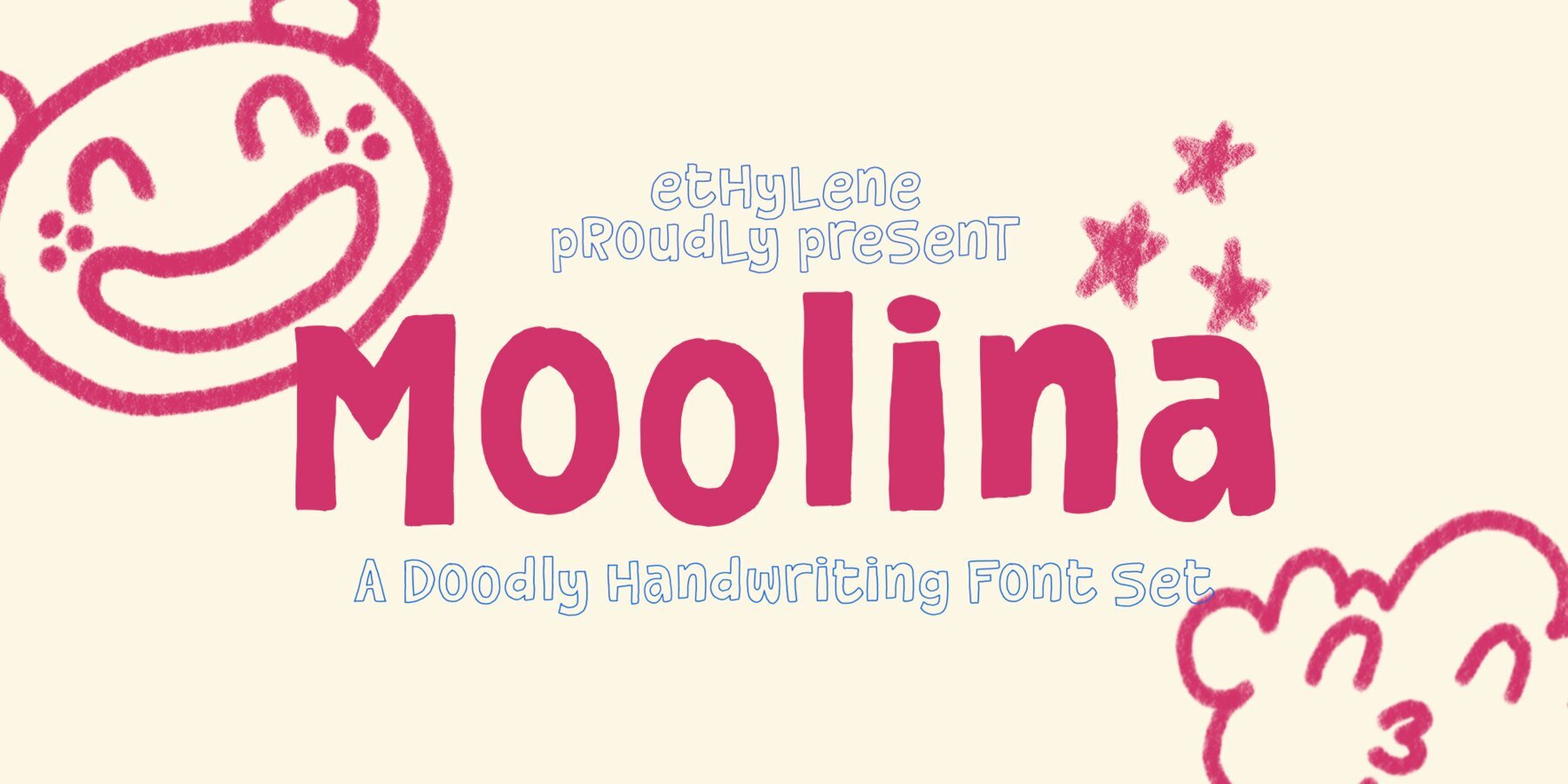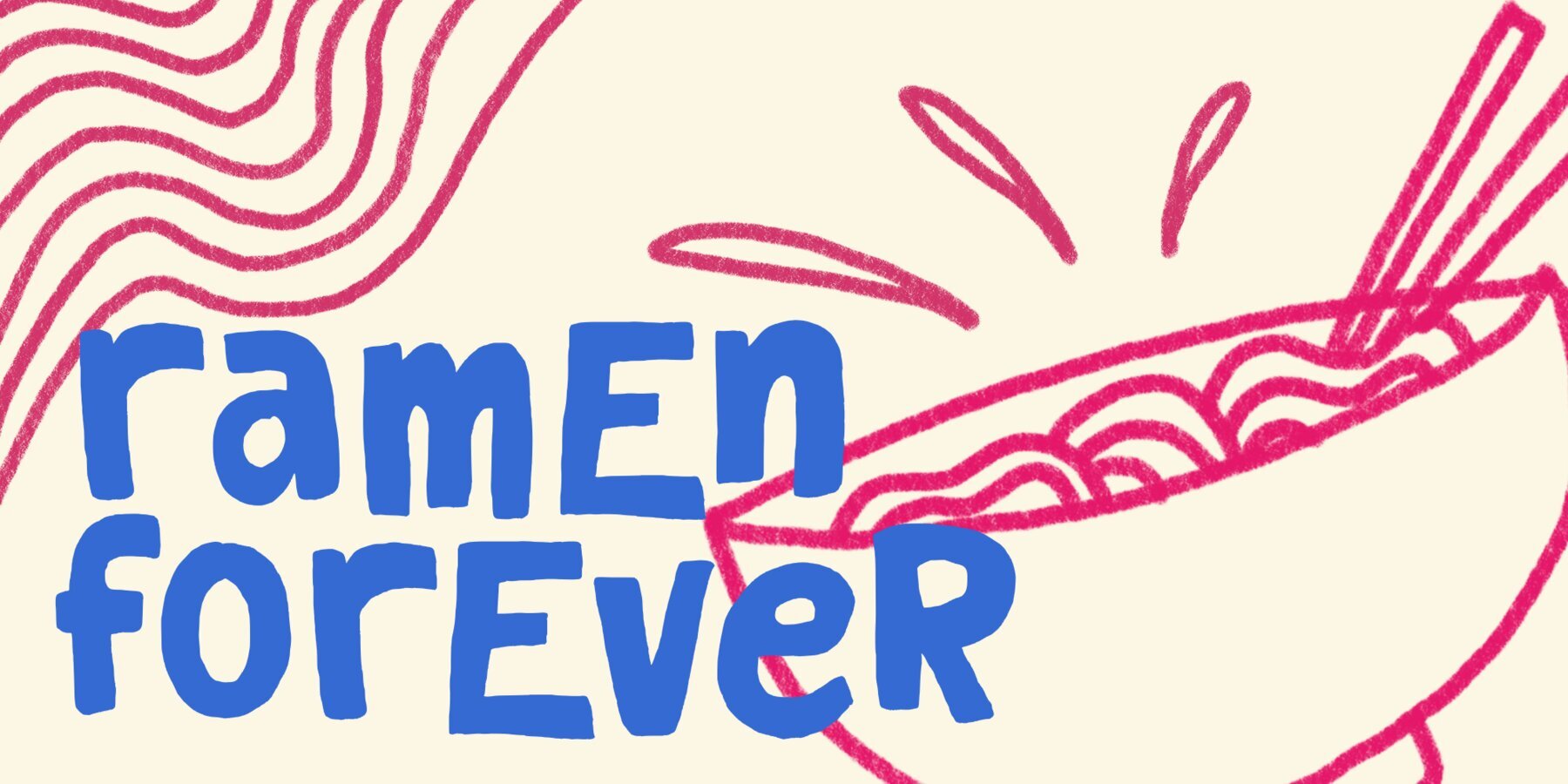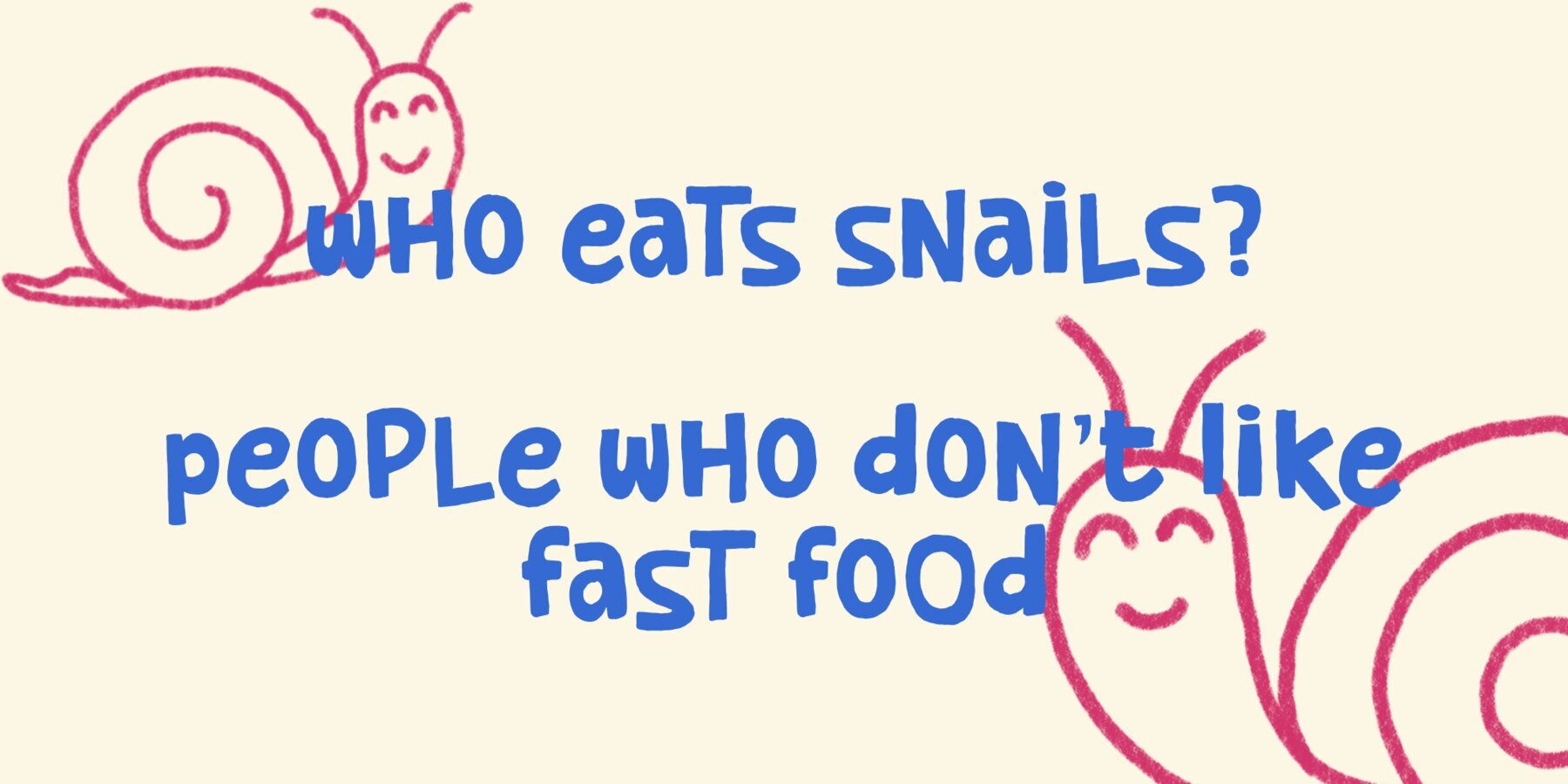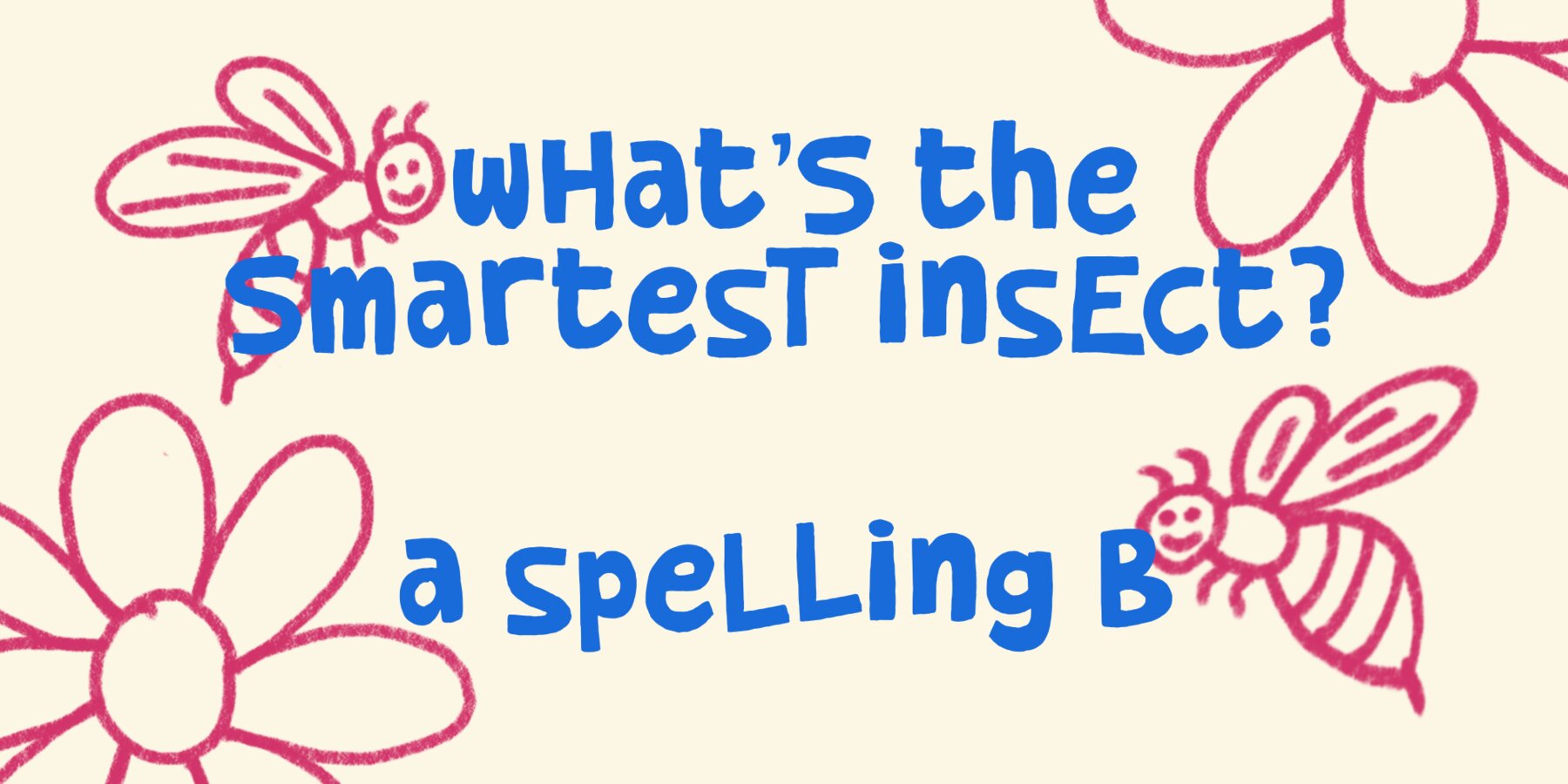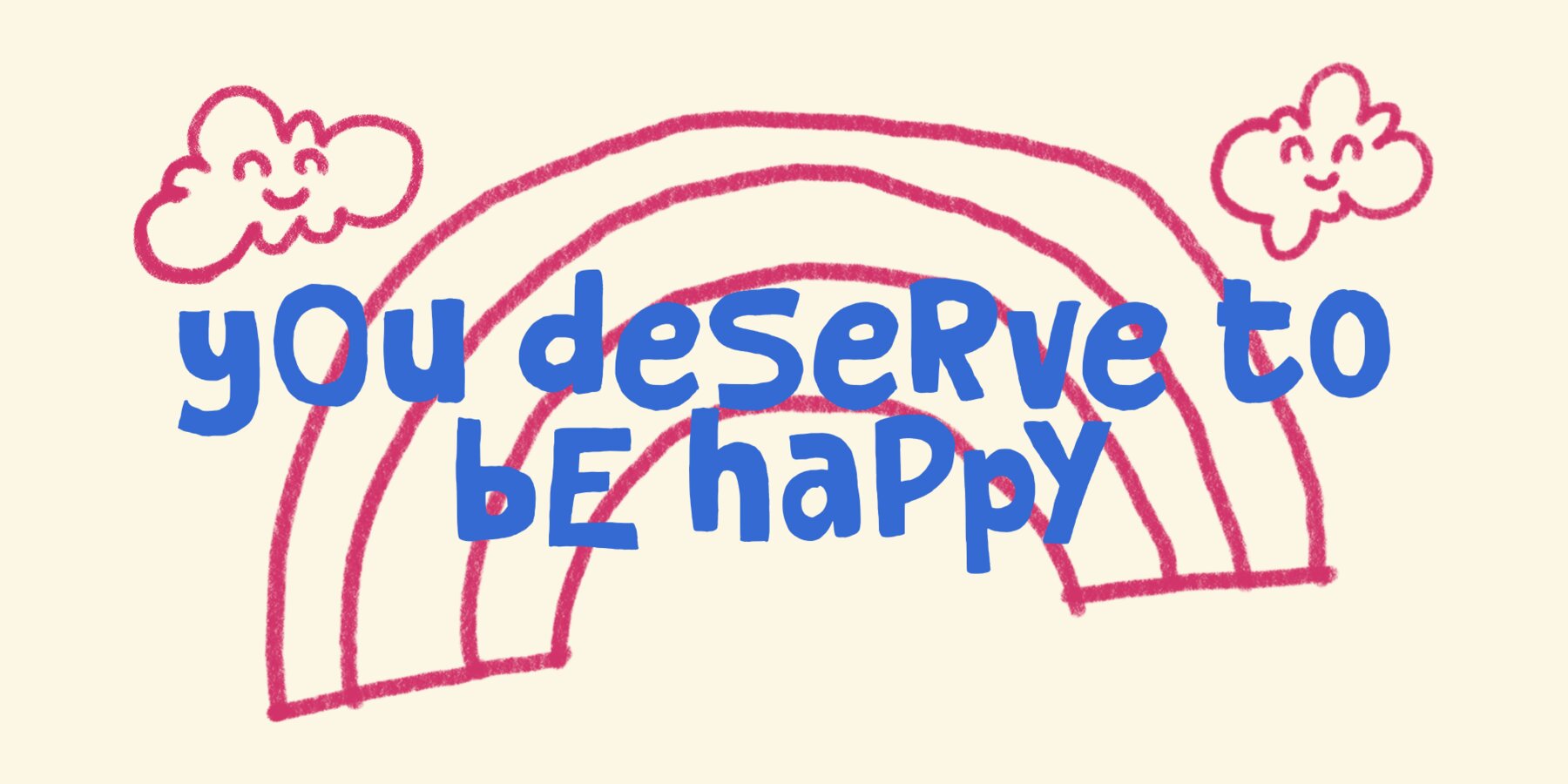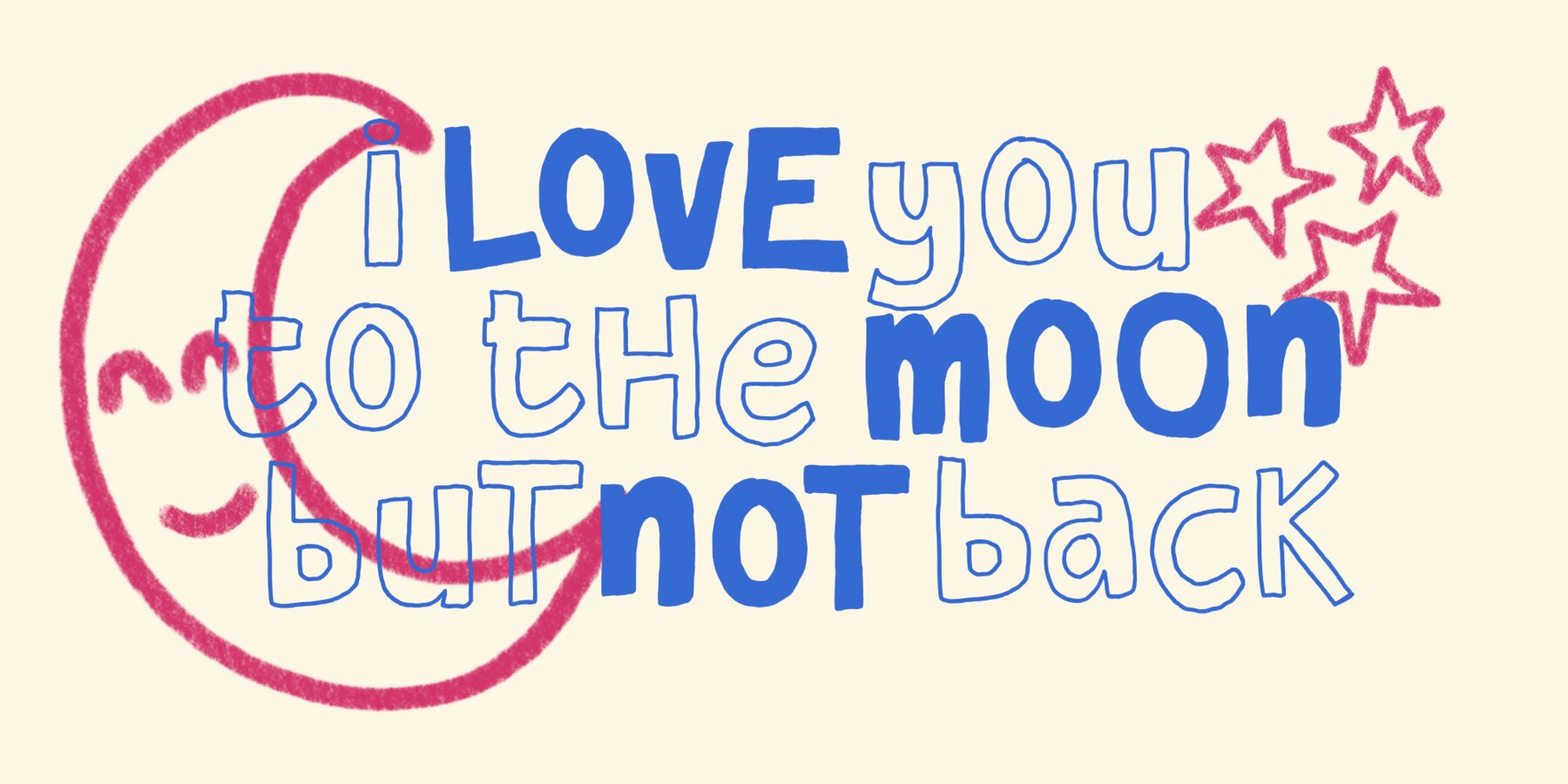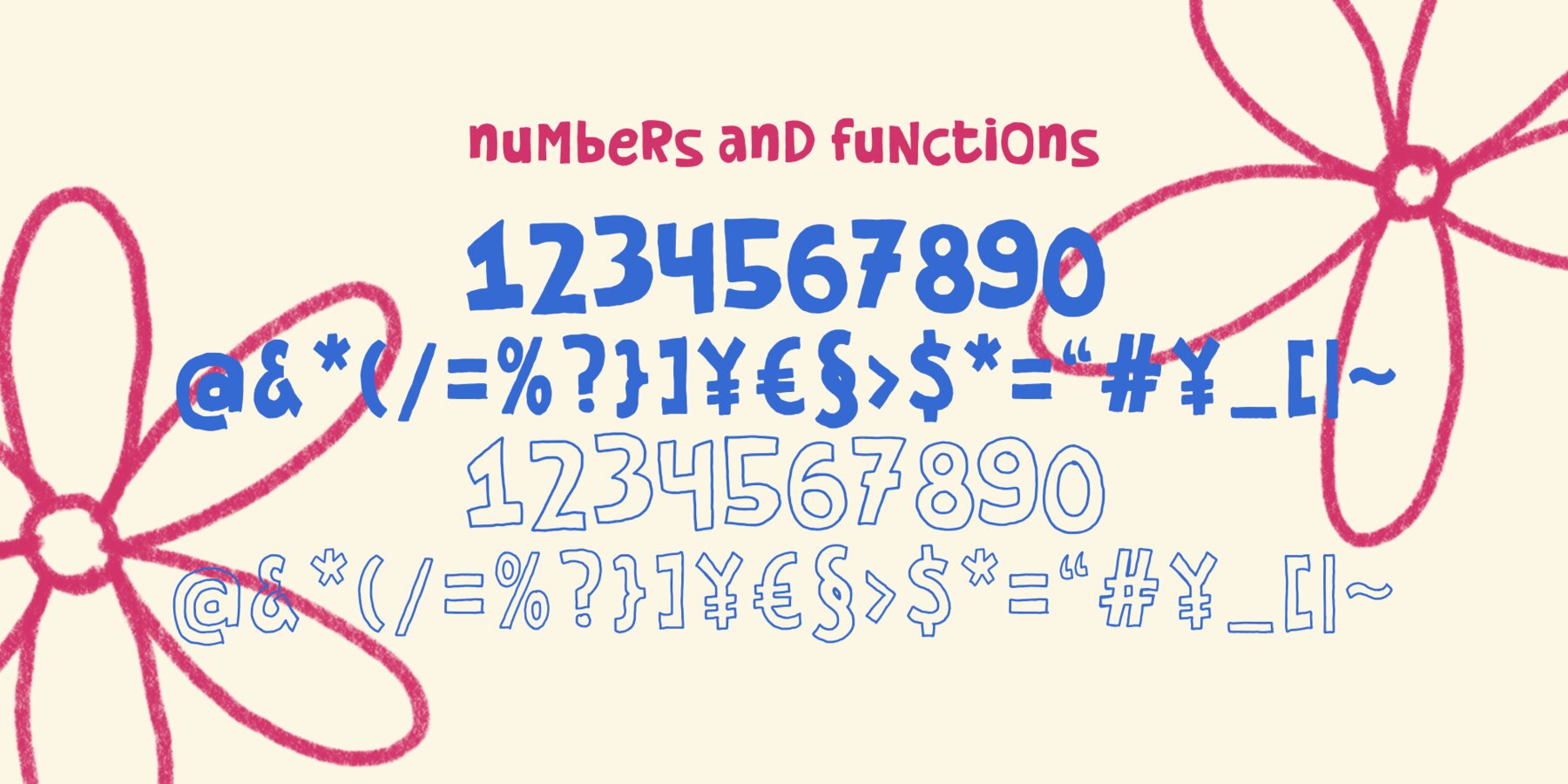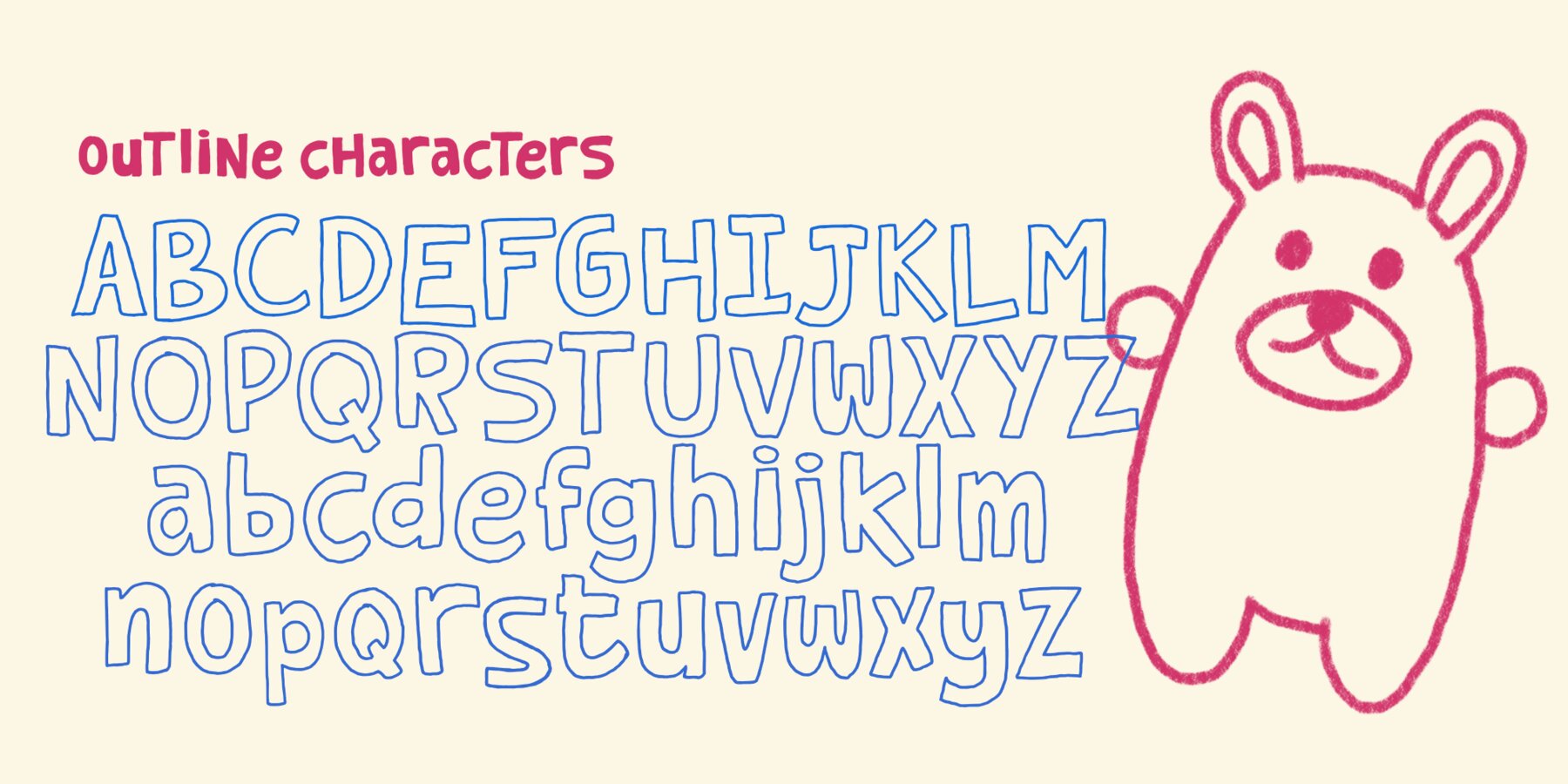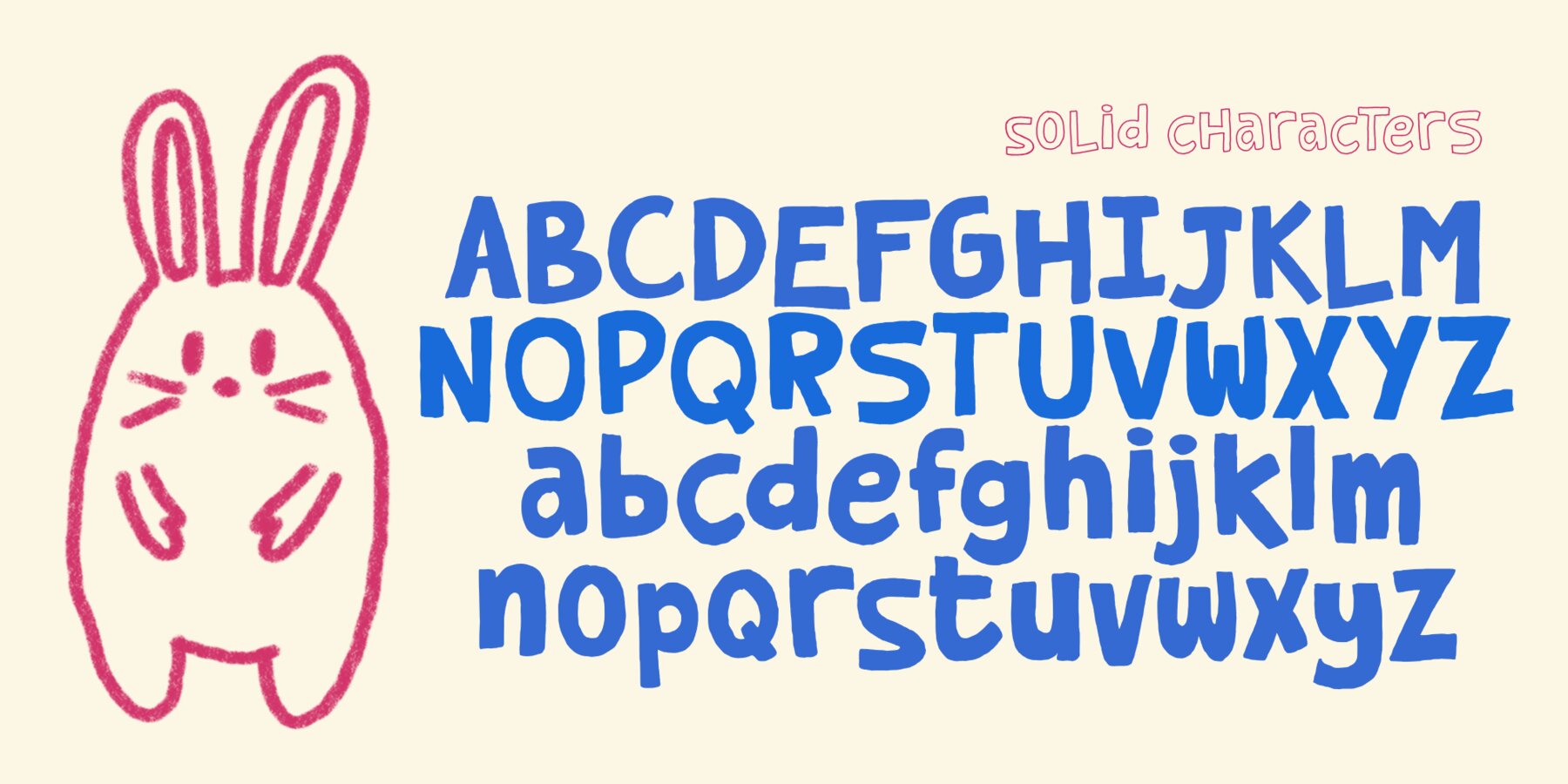
Moolina Font
Moolina Regular
Moolina Outline
Moolina is a whimsical font that captures the essence of children's handwriting, adding a charming touch to your projects. Its distinct style is enhanced by ligature features, offering a unique and playful aesthetic. This versatile font is available in two versions: solid and outline, providing options to suit different design needs.
Ideal for a wide range of applications, Moolina is perfect for children's book covers, food posters, social media posts, packaging, labels, YouTube thumbnails, and merchandise. Its playful design brings a sense of fun and creativity, making it a great choice for projects seeking a youthful and engaging look. With its delightful appearance and versatile usage, Moolina is an excellent addition to any designer's toolkit.